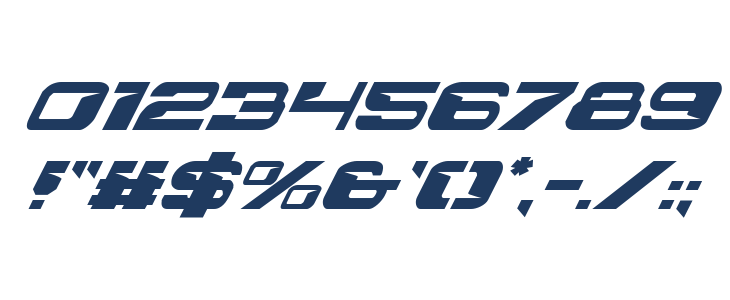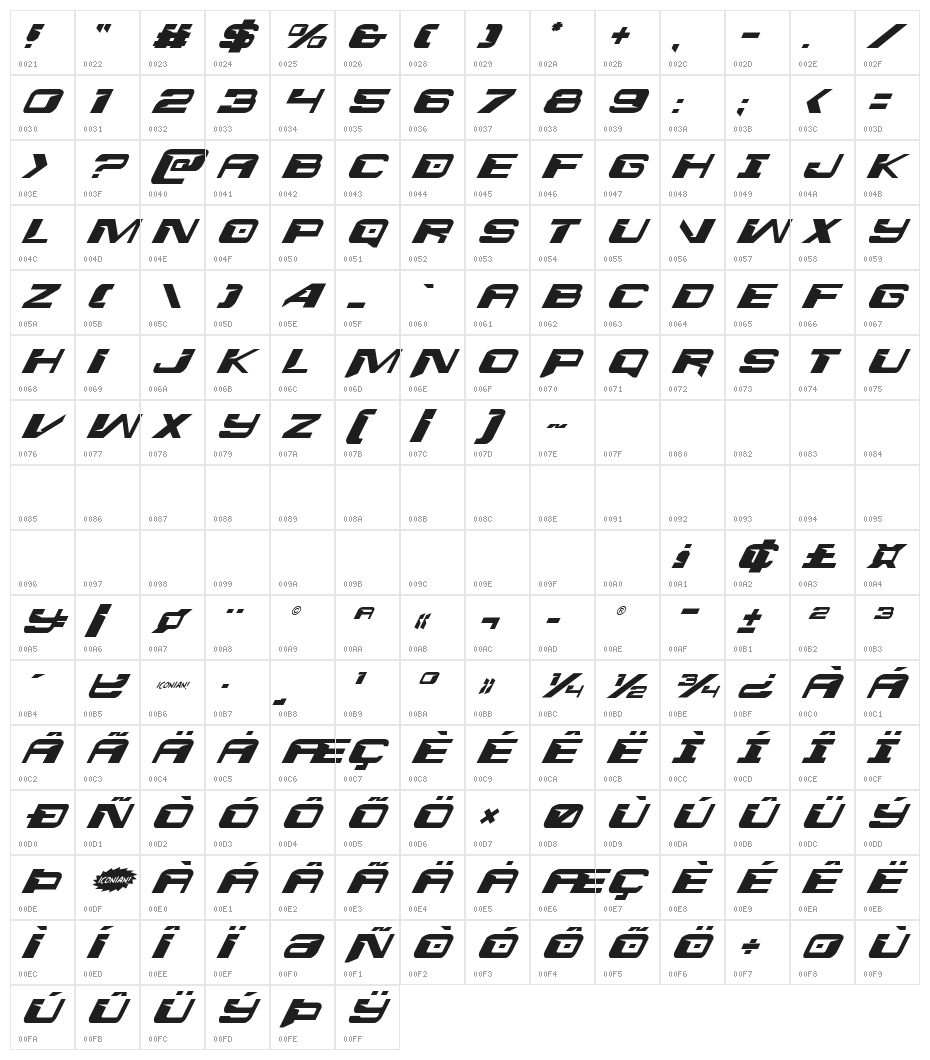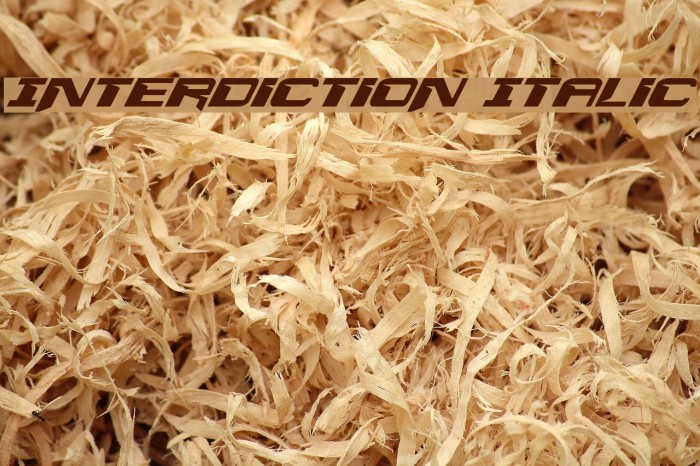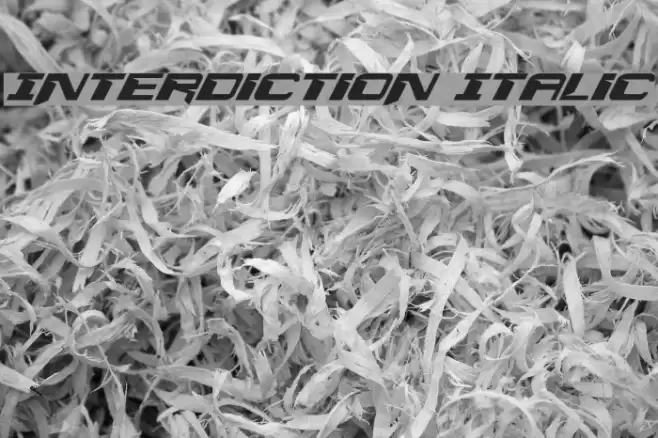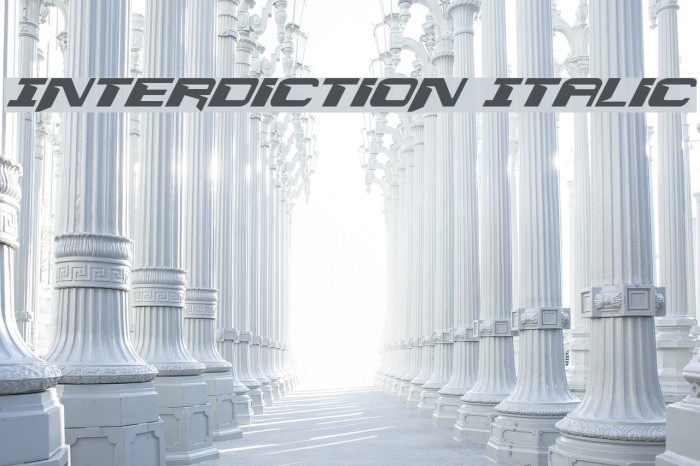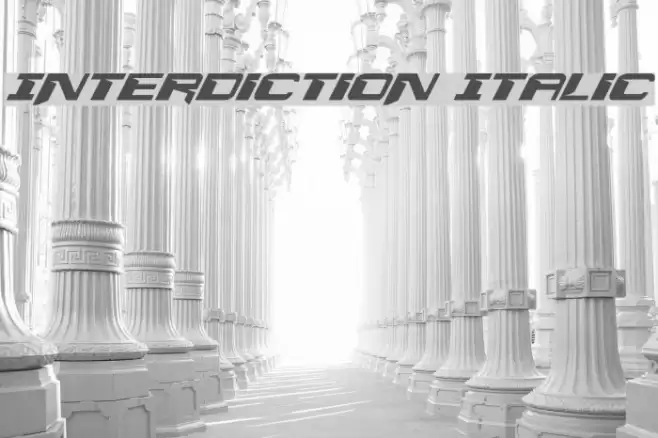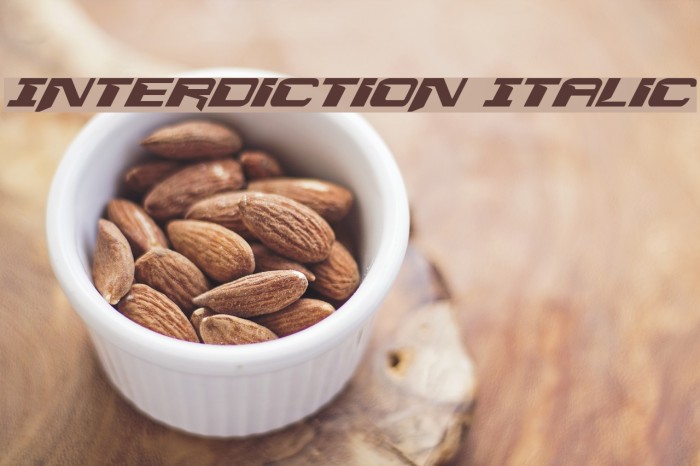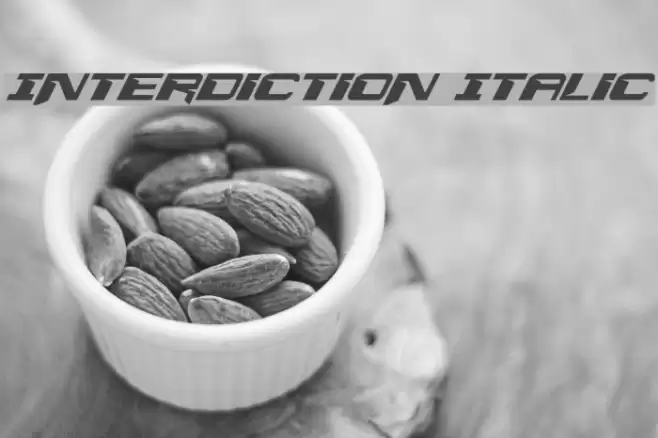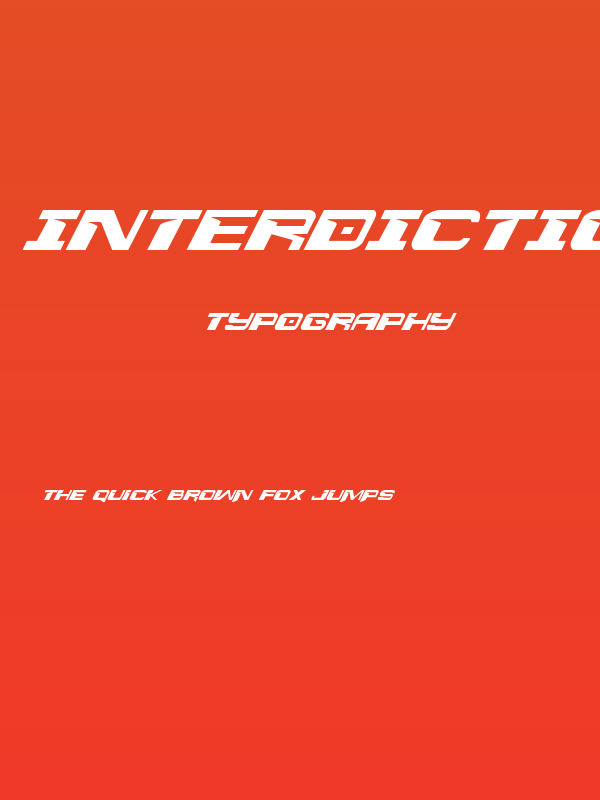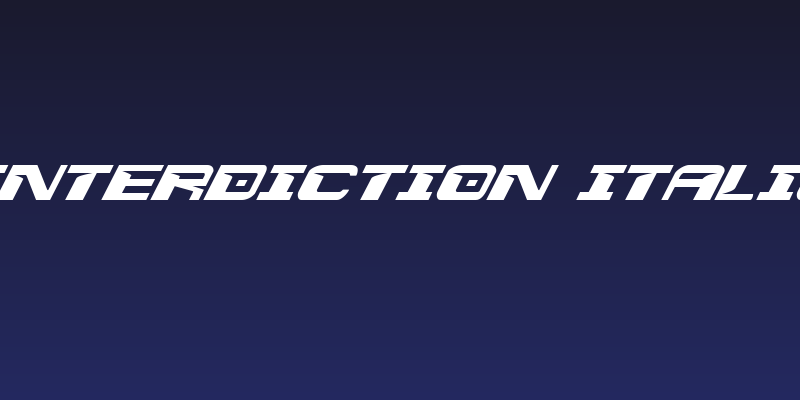
Interdiction Italic Font
Interdiction Italic Description
This font features a bold, italicized style with a futuristic and dynamic appearance. The characters are sharply angled, giving a sense of motion and speed. The uppercase and lowercase letters maintain a consistent slant, enhancing the italic effect. The numbers and special characters follow the same design principles, ensuring uniformity across all glyphs. The font's bold weight and italic style make it stand out, suitable for projects that require a modern and edgy look.
Proposed ProjectsIdeal for sports branding, tech-related designs, video game titles, and dynamic advertising materials.